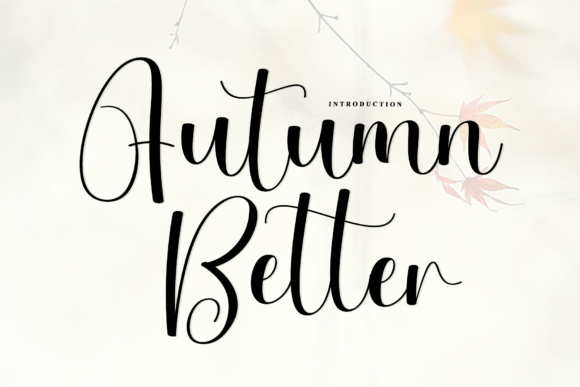
The Quest for the Perfect Font: Discovering Autumn Better
Ah, the eternal search for the perfect font! I recall a particularly frustrating design moment when I was working on a custom sublimation project for a client’s boutique. I had a clear vision of a elegant, modern script font that would elevate their brand, but my usual go-to fonts just weren’t cutting it. That’s when I stumbled upon Autumn Better, a beautiful handwritten script font that has since become a staple in my design toolkit.
An Honest Review of Autumn Better
- ✨ Smooth, fluid strokes that exude elegance and sophistication
- ✅ Lovely ornamental curves that add a touch of romance and whimsy
- ✅ Consistent weight and clean connections for excellent legibility
- ✅ Feminine, professional, and slightly romantic vibe that’s perfect for boutique branding and custom stationery
Of course, no font is perfect, and Autumn Better has a few minor quirks:
- 🤔 Limited multilingual support (but it’s still a great option for English-language projects)
- ⚠️ Some users may find the font too ornate for certain projects (but that’s just a matter of personal taste!)
- Experiment with OpenType features, like stylistic alternates and glyphs, to add visual interest
The Story Behind Autumn Better
Autumn Better was designed with the modern creative in mind. The designer, inspired by the beauty of handwritten scripts, aimed to create a font that would be both elegant and accessible. With its smooth strokes and ornamental curves, Autumn Better is perfect for a wide range of design projects.
| Is Autumn Better suitable for body text? | While Autumn Better is beautiful, it’s best suited for headings and titles due to its ornate nature. |